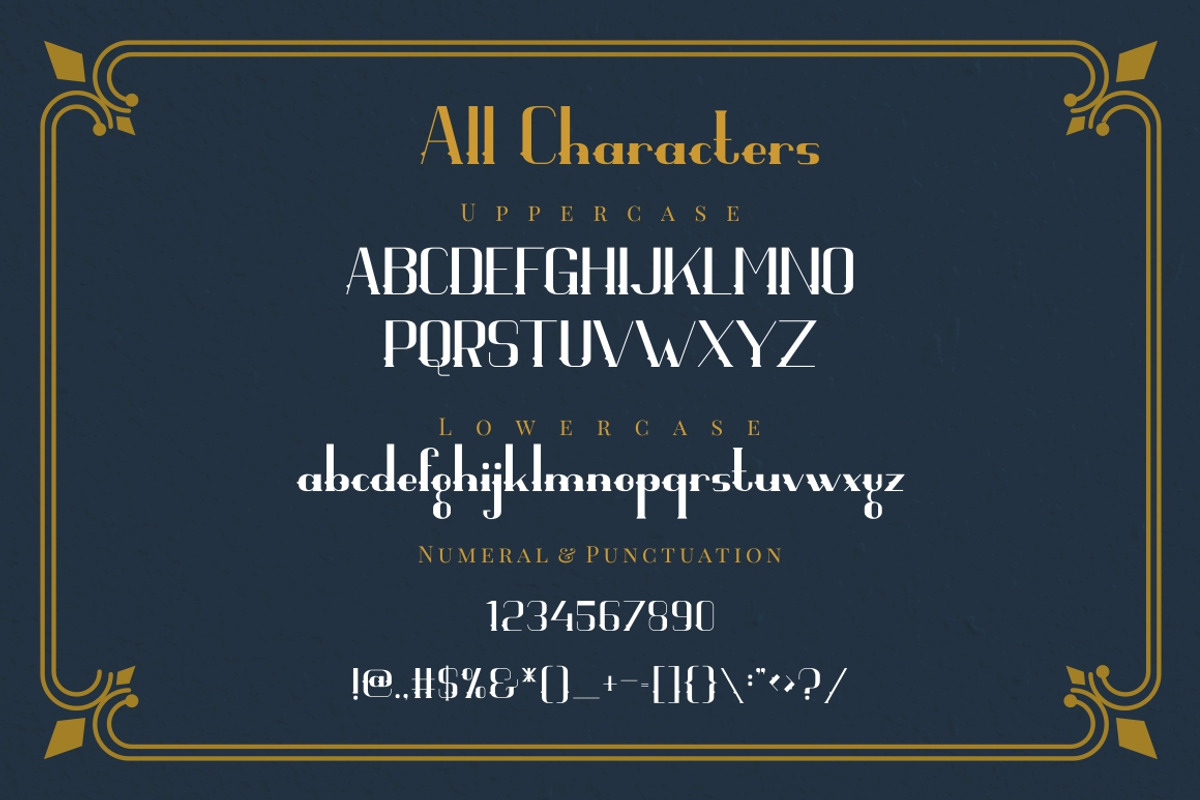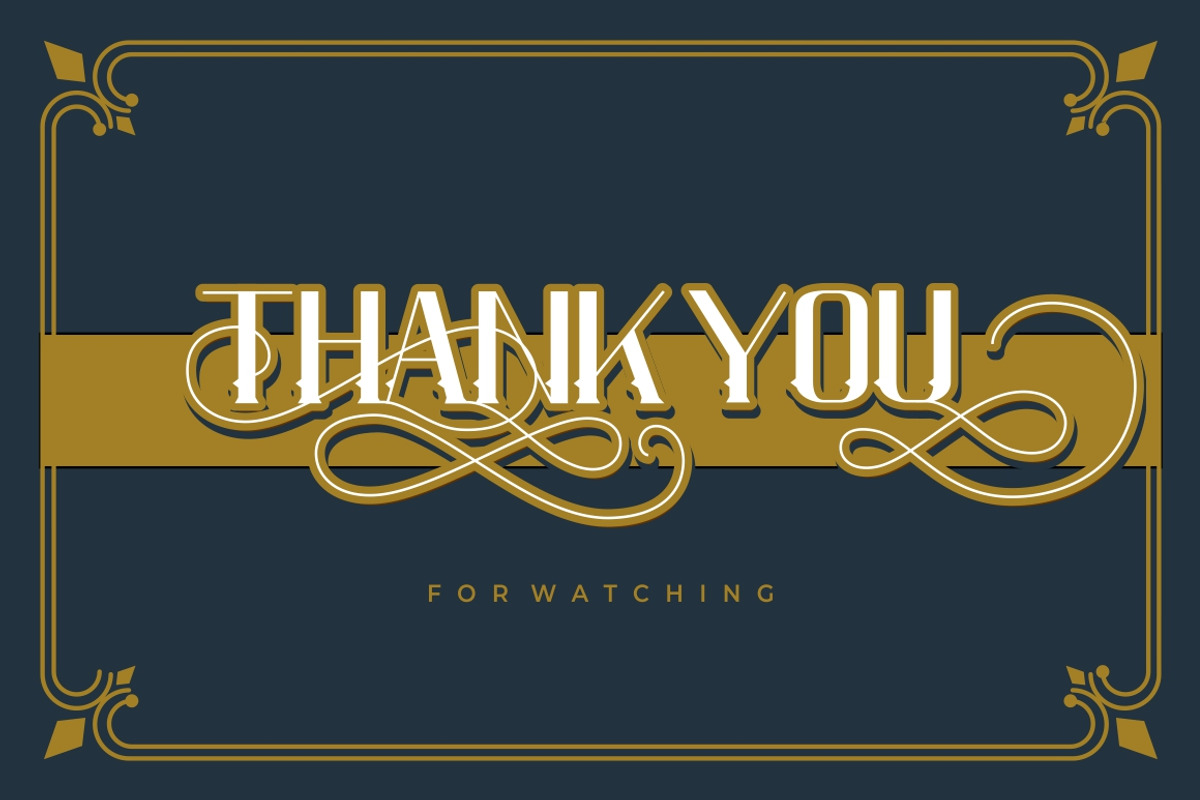
Visaka
VISAKA
Introducing VISAKA !! A Vintage Display Typeface. Classic, Elegant , Unique and Luxury merge into one.
VISAKA is great for any kind of display purpose from logos, Tshirt, apparel, quote, handwritten quotes, product packaging, tittle header, poster, merchandise, social media, labels, branding & greeting cards.